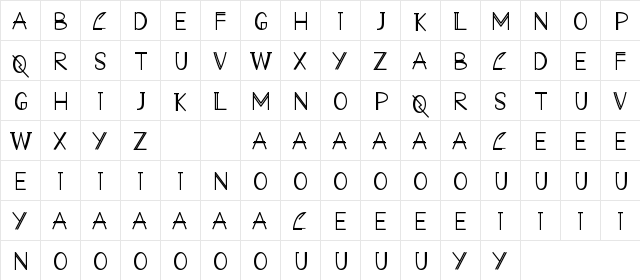
VOLGAVE QUE WINMANS Regular
| Designer | Zkhai Creative |
Design Context for VOLGAVE QUE WINMANS Typeface
VOLGAVE QUE WINMANS offers clean, dependable letterforms without strong stylistic allegiance, making it a practical choice for designers who need flexibility.